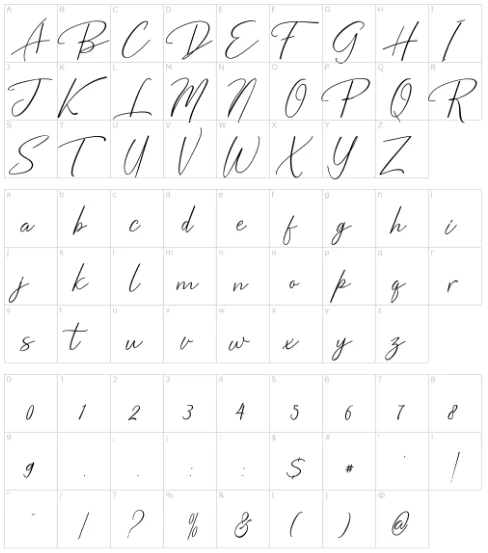
Bentosa font is a soft and lovely font with a connection to the upper half of the letter; it’s a one-of-a-kind, luxurious, and delightful font. This typeface will help you create wonderful works by complementing your design needs. The Bentosa font comes with OpenType support and a large number of glyphs. And, of course, having a large number of flying machines will allow you to customize letters to your taste, with numerous variations and options for each letter, allowing you to fine-tune your design choices while also supporting various languages.
Bentosa font is ideal for branding, wedding invites, magazines, mugs, business cards, quotations, posters, and many more projects. Because the typeface has a girly vibe to it, you may use it to create adorable girlie wallpaper.
| Name | Bentosa Font |
| Designer | Pollem Studio |